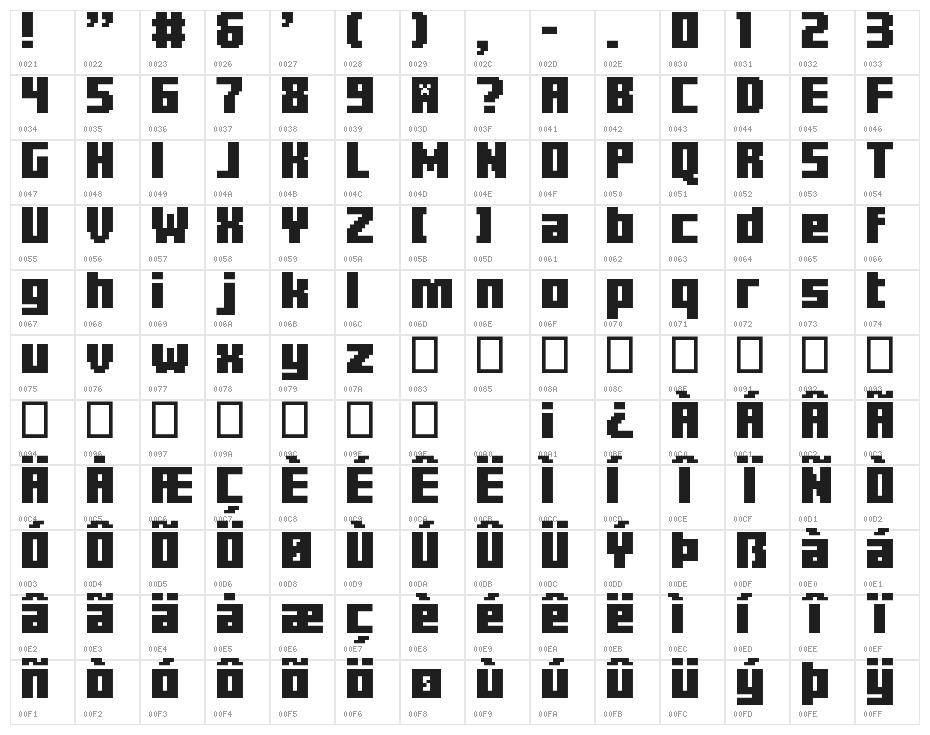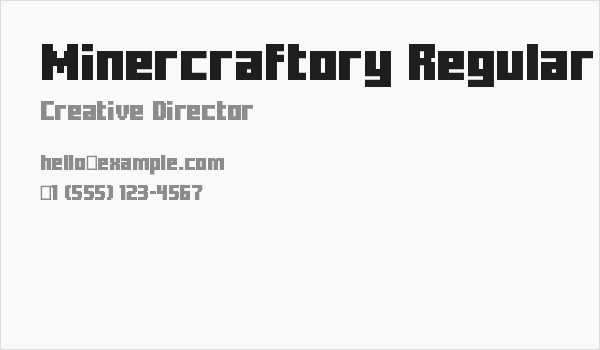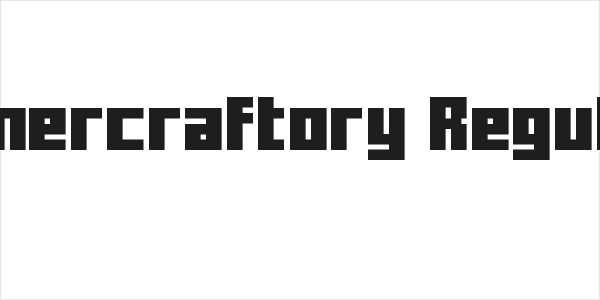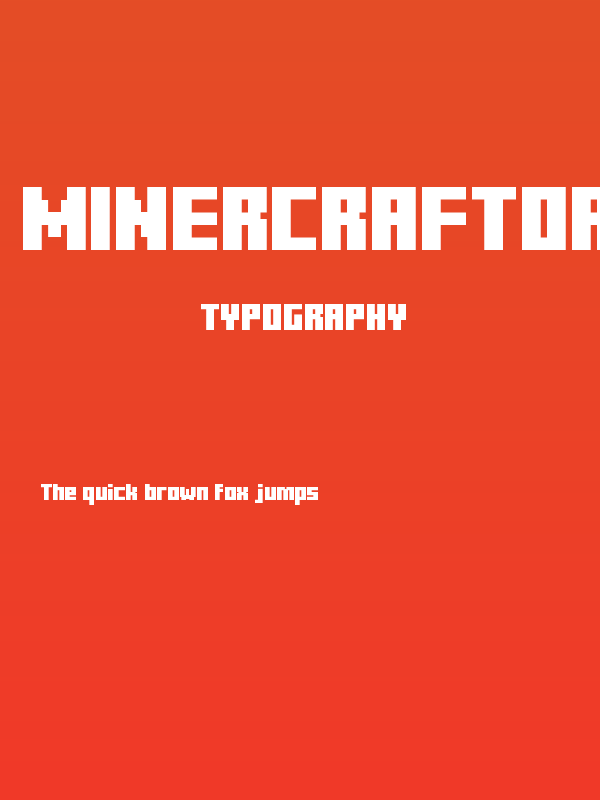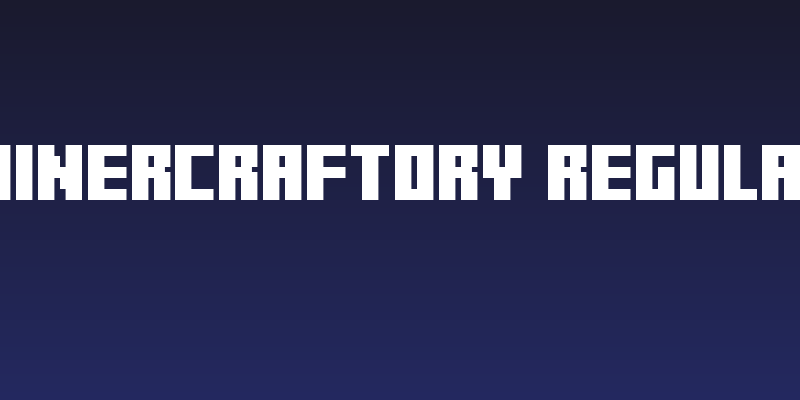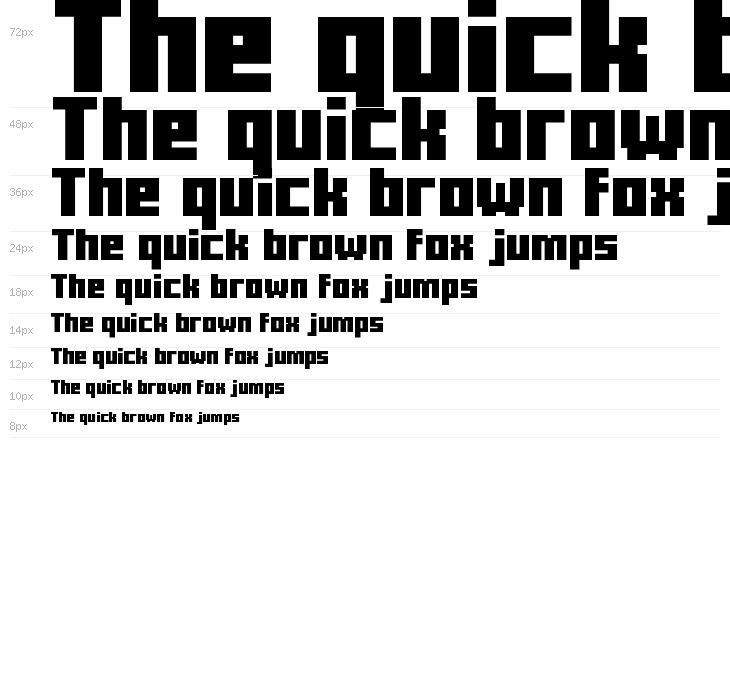
Minercraftory Regular Font
Minercraftory Regular Description
This font features a bold, blocky design reminiscent of pixelated or 8-bit graphics, commonly associated with retro video games. The characters are uniformly structured with sharp, angular edges, giving it a distinctly digital appearance. The uppercase and lowercase letters maintain a consistent height, while the numbers and special characters follow the same geometric style. This font's design is straightforward and impactful, making it ideal for projects that require a nostalgic or tech-inspired aesthetic.
| Overall Style | Retro, Digital |
| Proposed Projects | Ideal for video game graphics, retro-themed posters, digital art projects, and tech-related branding. |